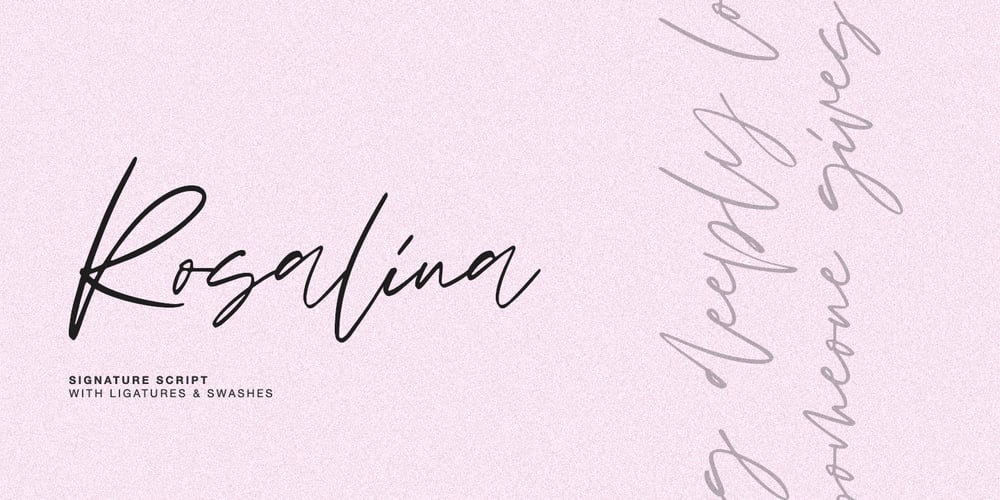
Rosalina Font Family was designed by Dmitrii Chirkov and published by Supfonts. Rosalina contains 1 styles and family package options. Hello, friends. Here’s my new experiment. This font breaks the boundaries even more. Rosalina combines all these qualities: simple and clear, looks at ease. It is perfect for signatures or design, wedding invites and cards, where you do not need a strict style ๐ Test it out below to see how it could look for your next project! Check out my blog: https://www.instagram.com/zloillev pinterest.com/dmitriychirkov7 Enjoy